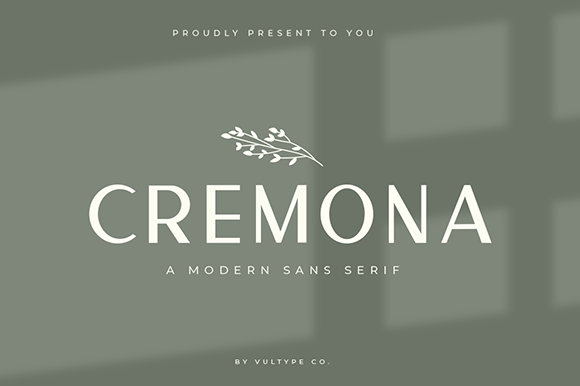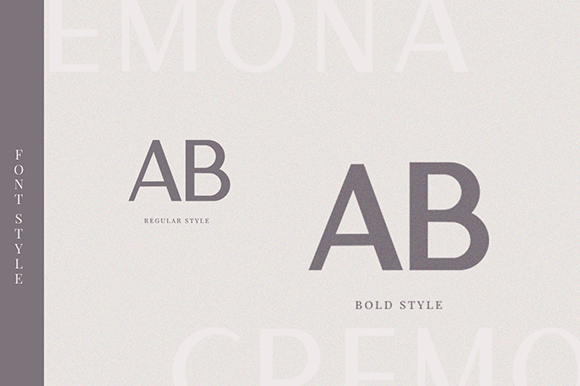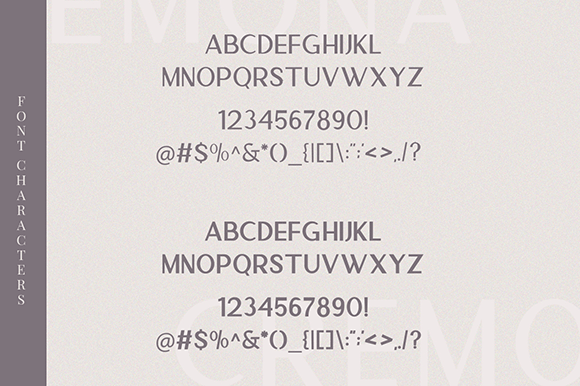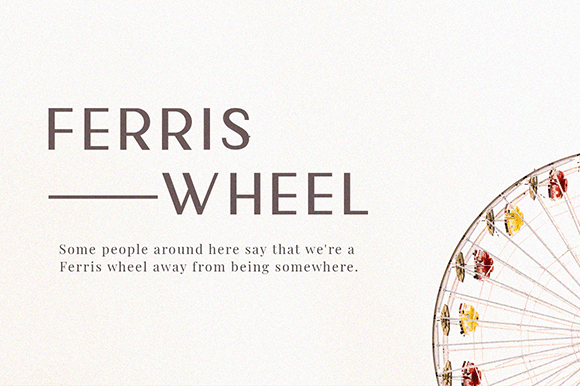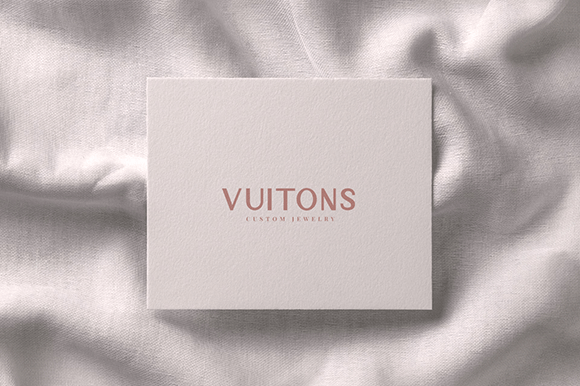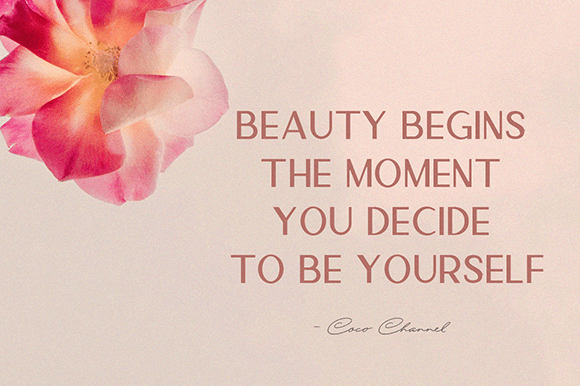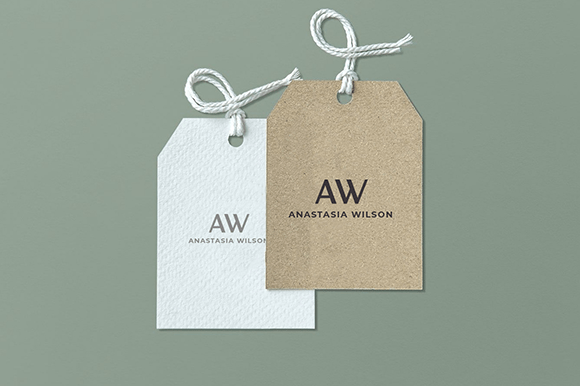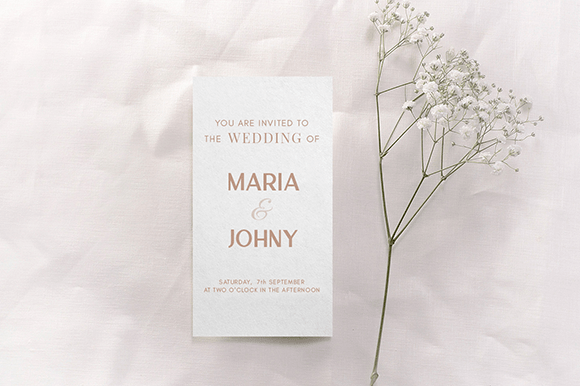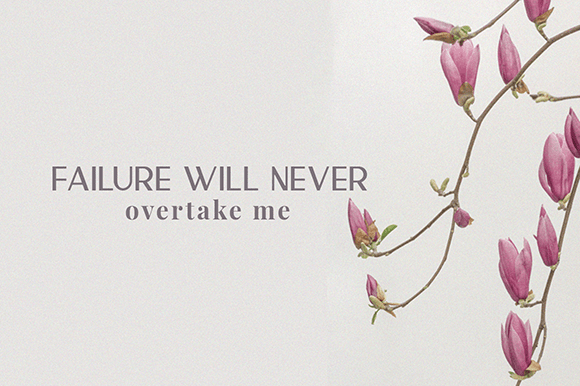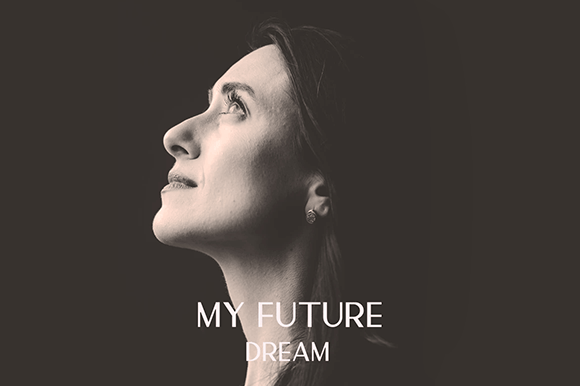
Cremona
Font Family by Vultype Co
Cremona includes two all-caps fonts: Cremona - Regular, Cremona - Bold. It can be perfect for presentations, magazines, notices, titles, magazine, web layouts, logos, invitations, headers, name card, branding and other any business related.